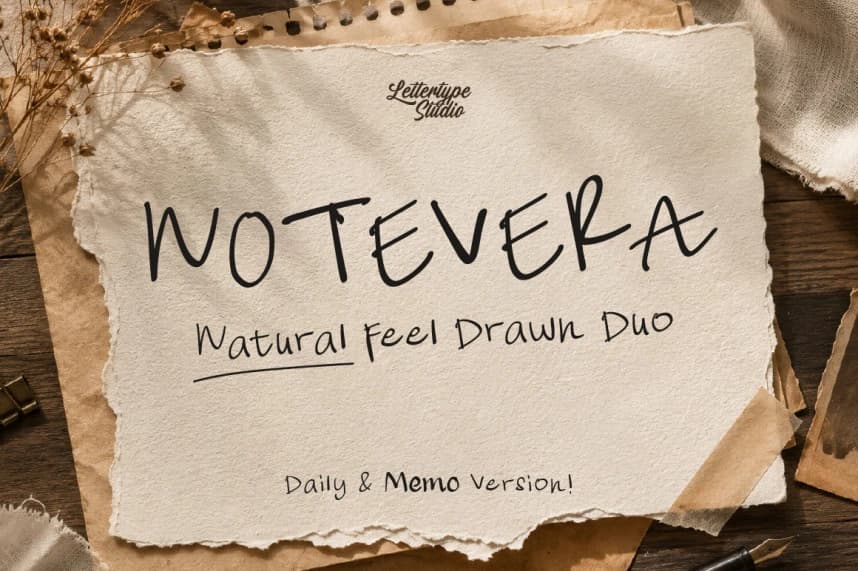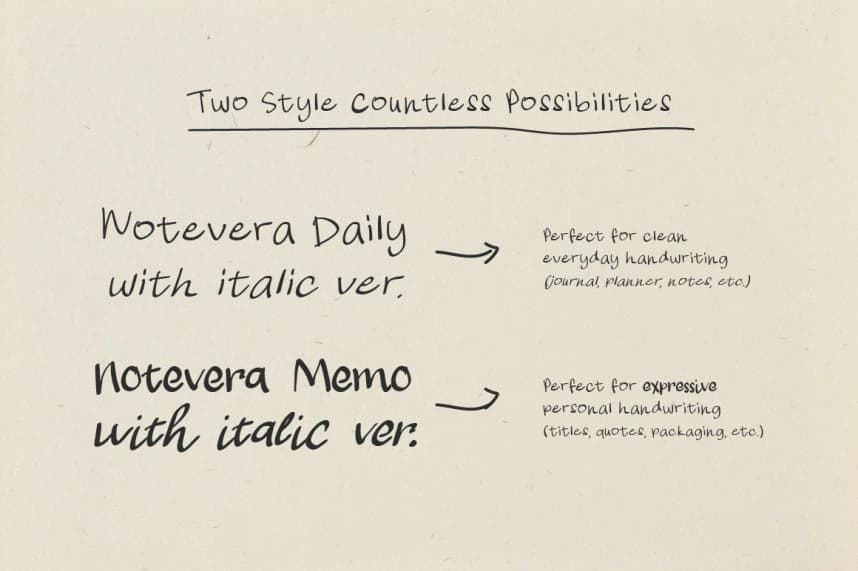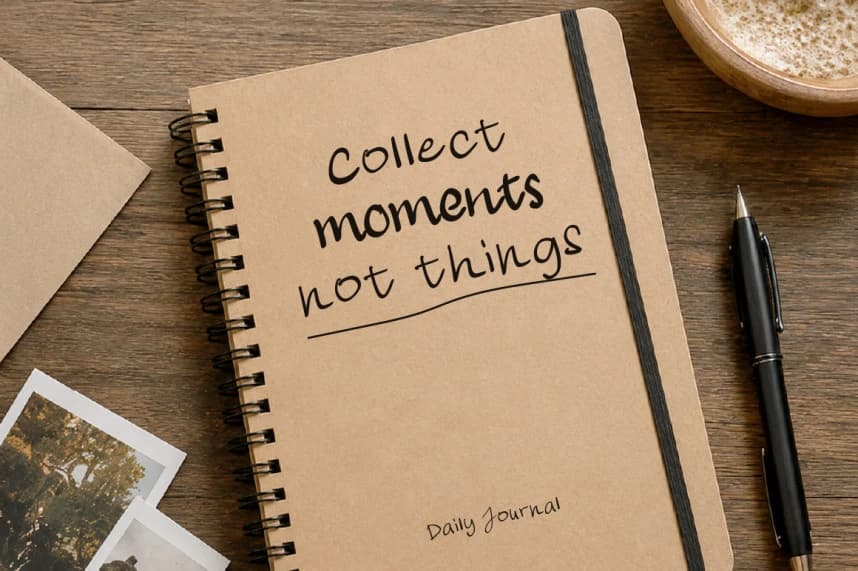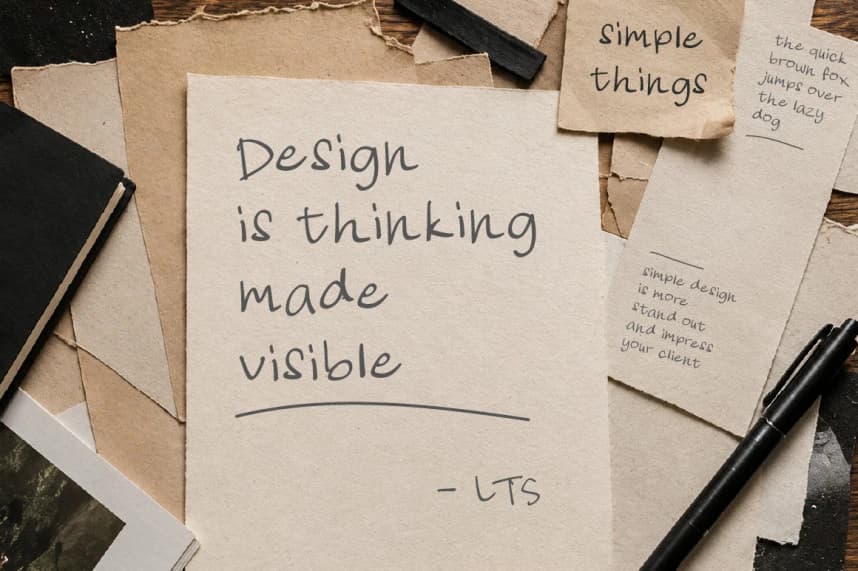
Notevera Duo Font
Notevera Duo Font is a modern handwritten font duo crafted to capture the warmth of natural writing with a clean editorial touch. Designed with two complementary handwritten styles — Notevera Daily and Notevera Memo